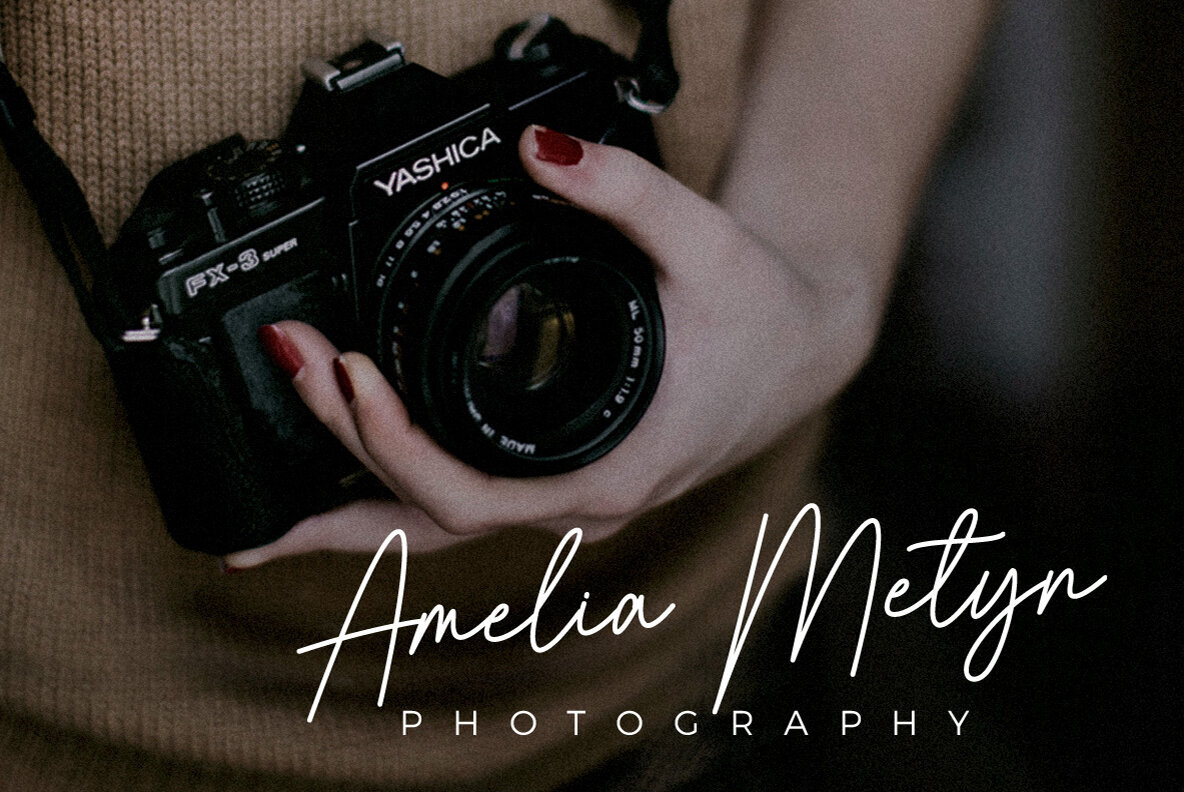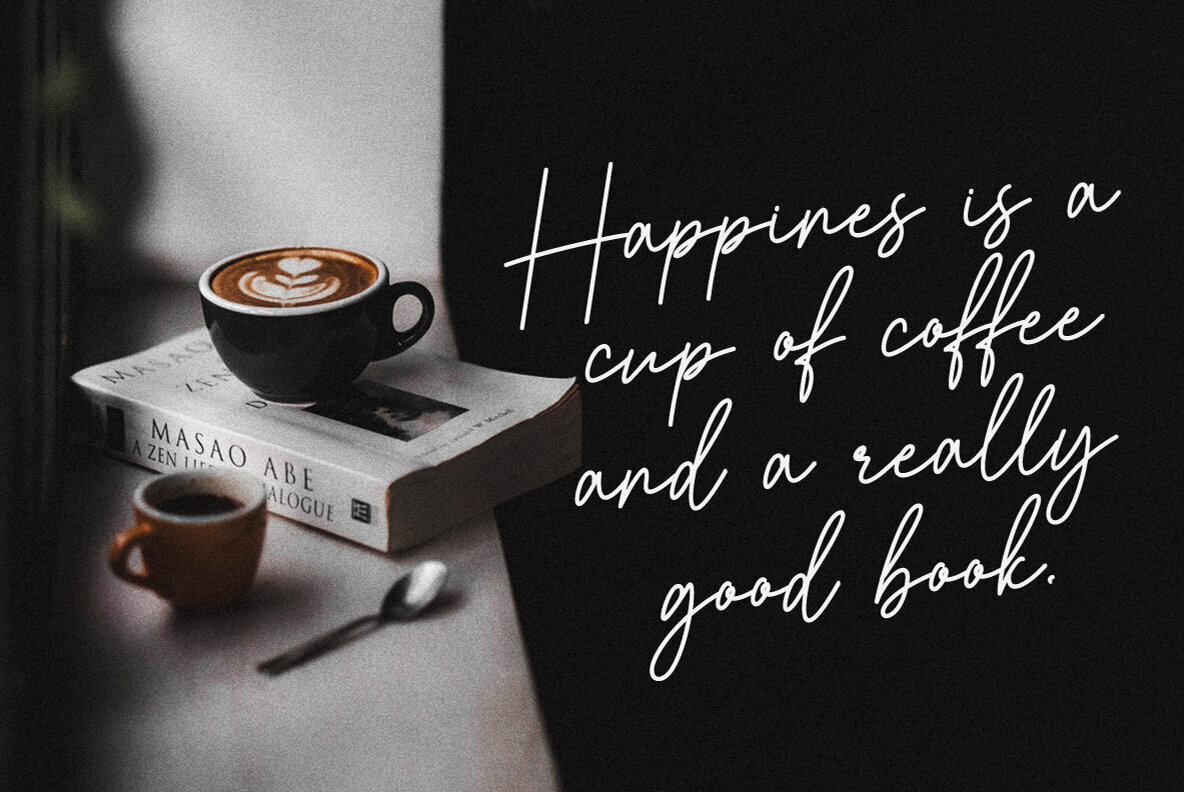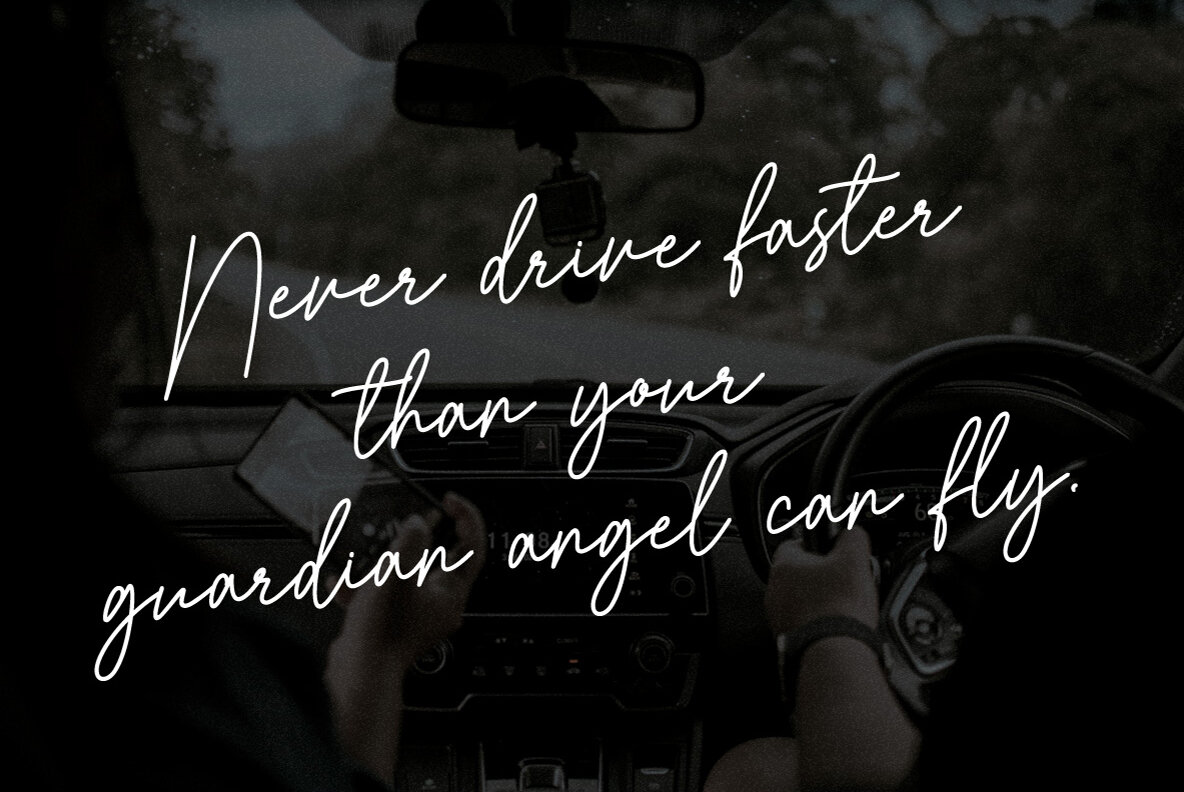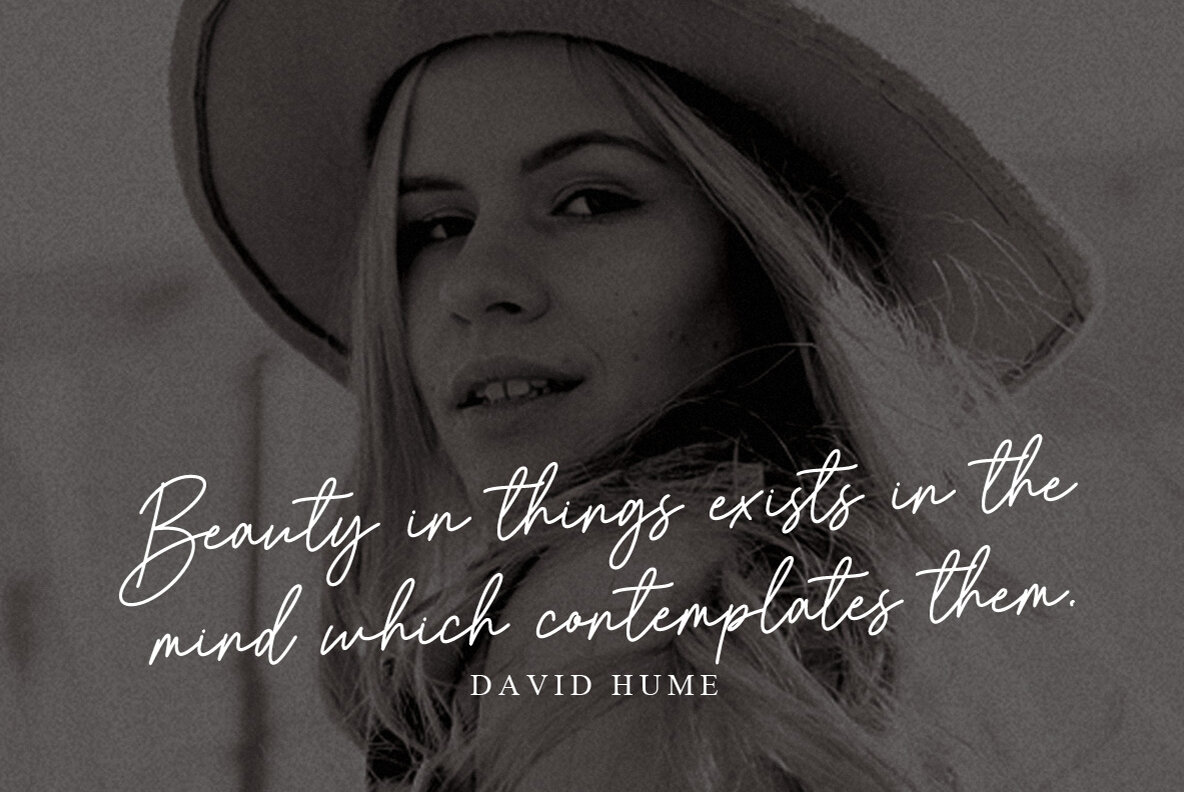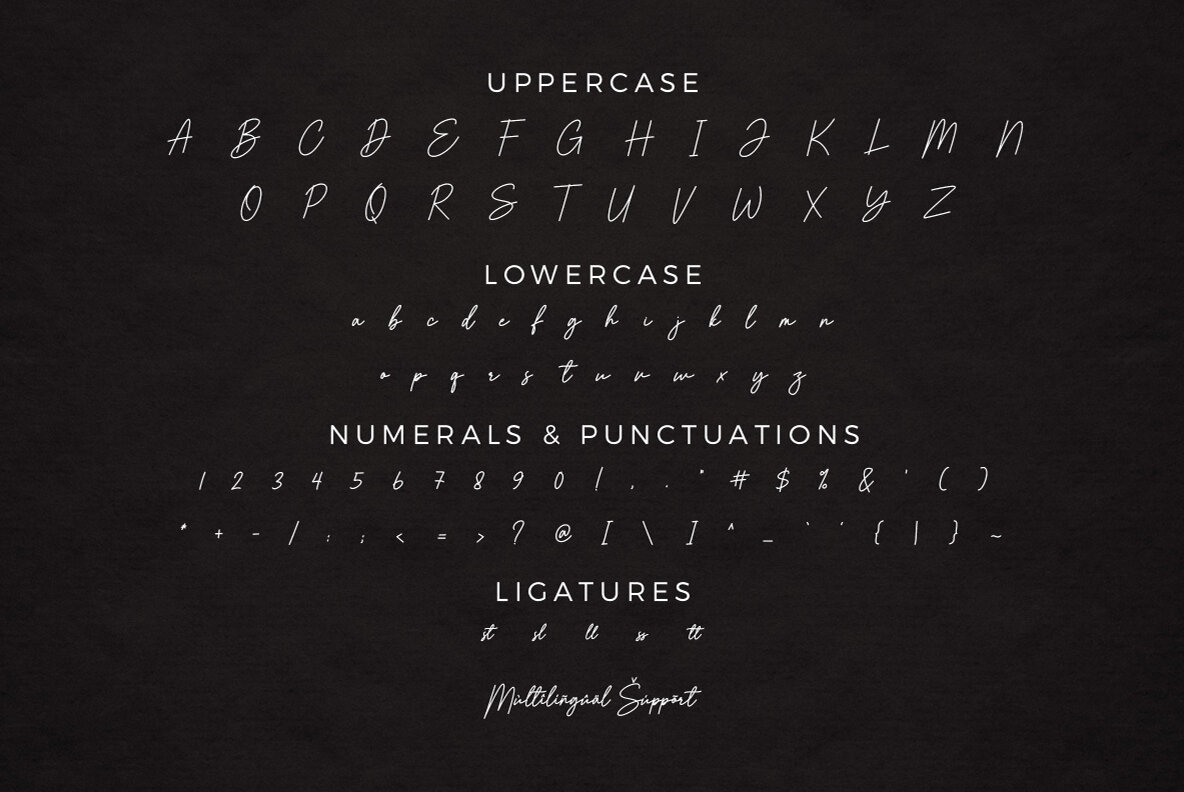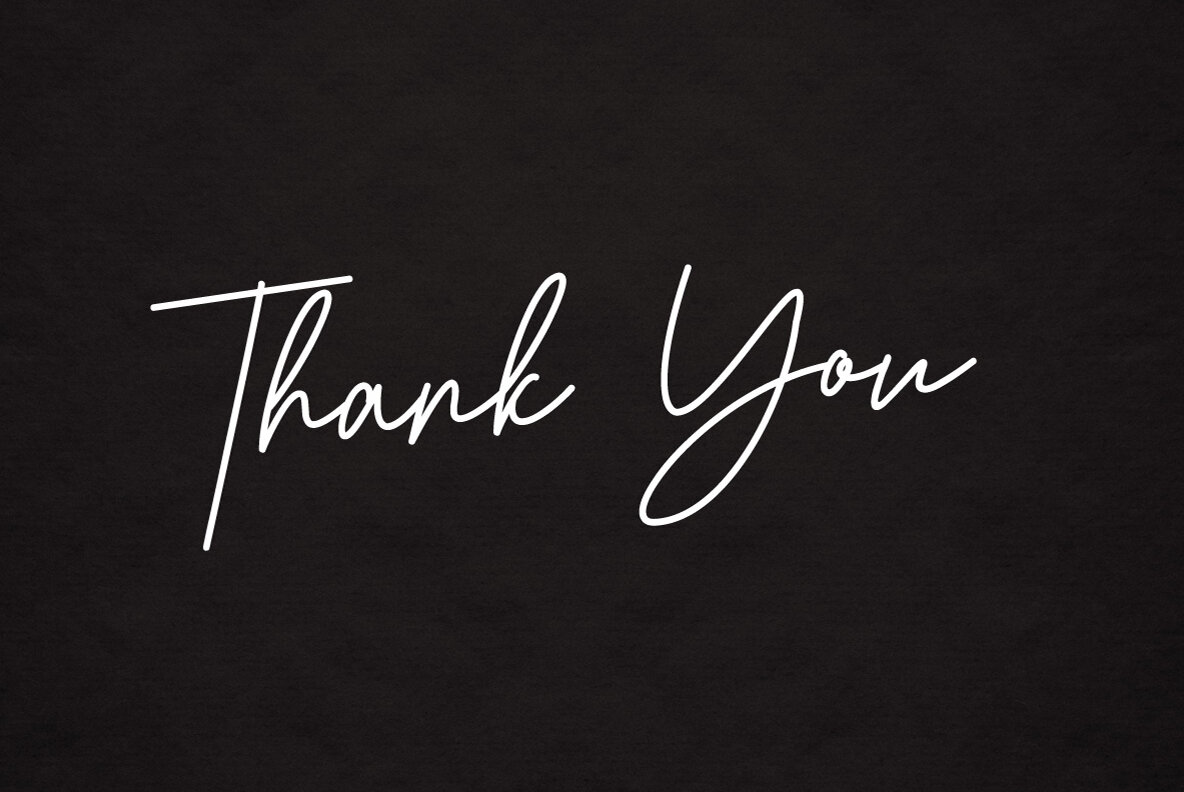
Brilanys Signature Font
Brilanys Signature Regular
Brilanys Signature is a clean, elegant hand-drawn script font with unique curves and an elegant inky flow.
Features: uppercase, lowercase, symbol, number, ligature, and also support multi language.
Brilanys Signature is perfect for photography, watermark, social media posts, advertisements, logos & branding, invitation, product designs, label, stationery, wedding designs, product packaging, special events or anything that need handwriting taste.